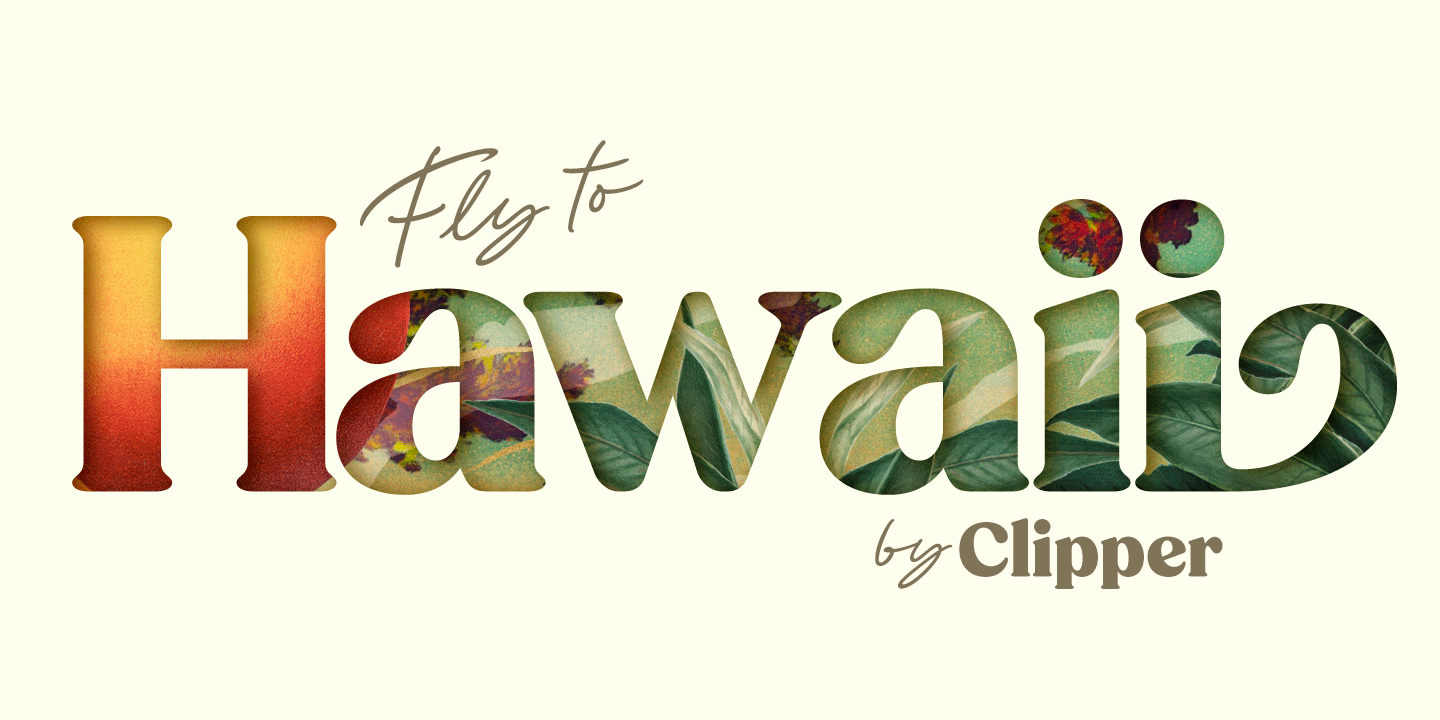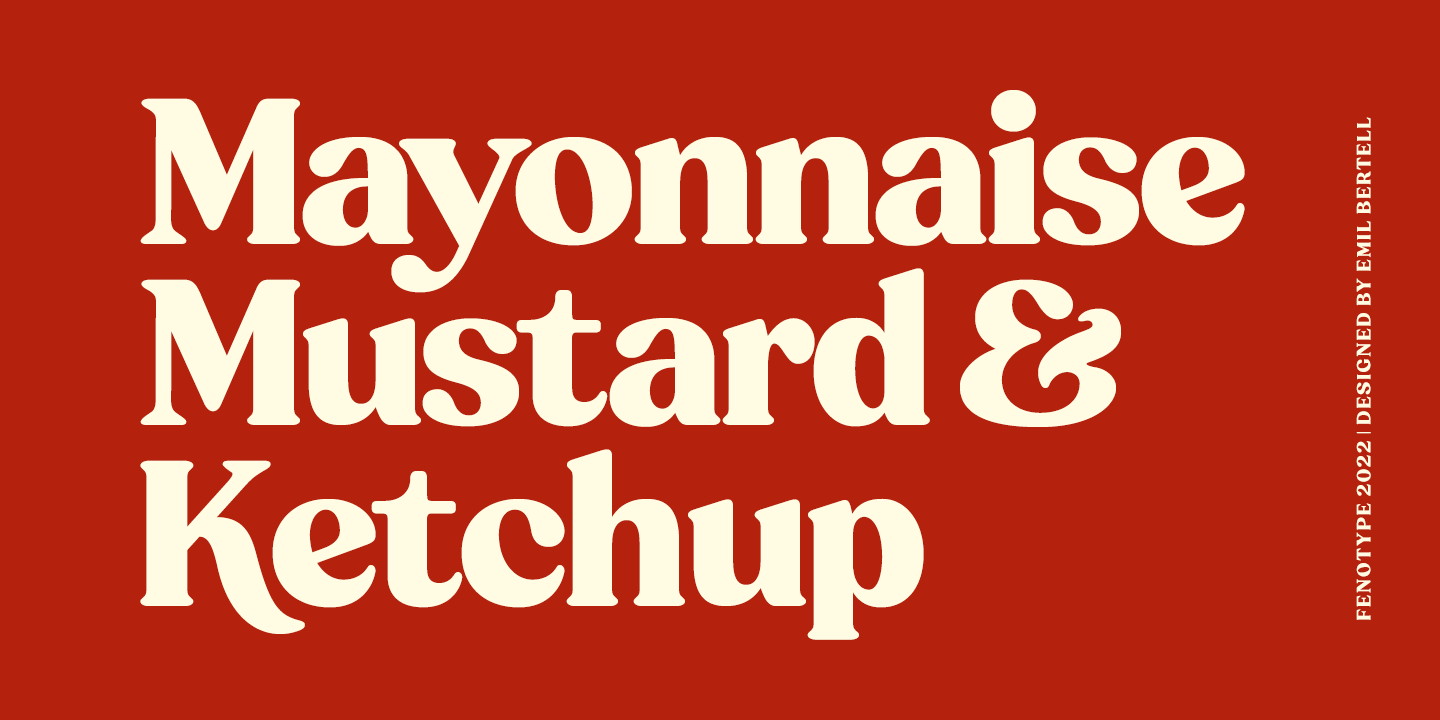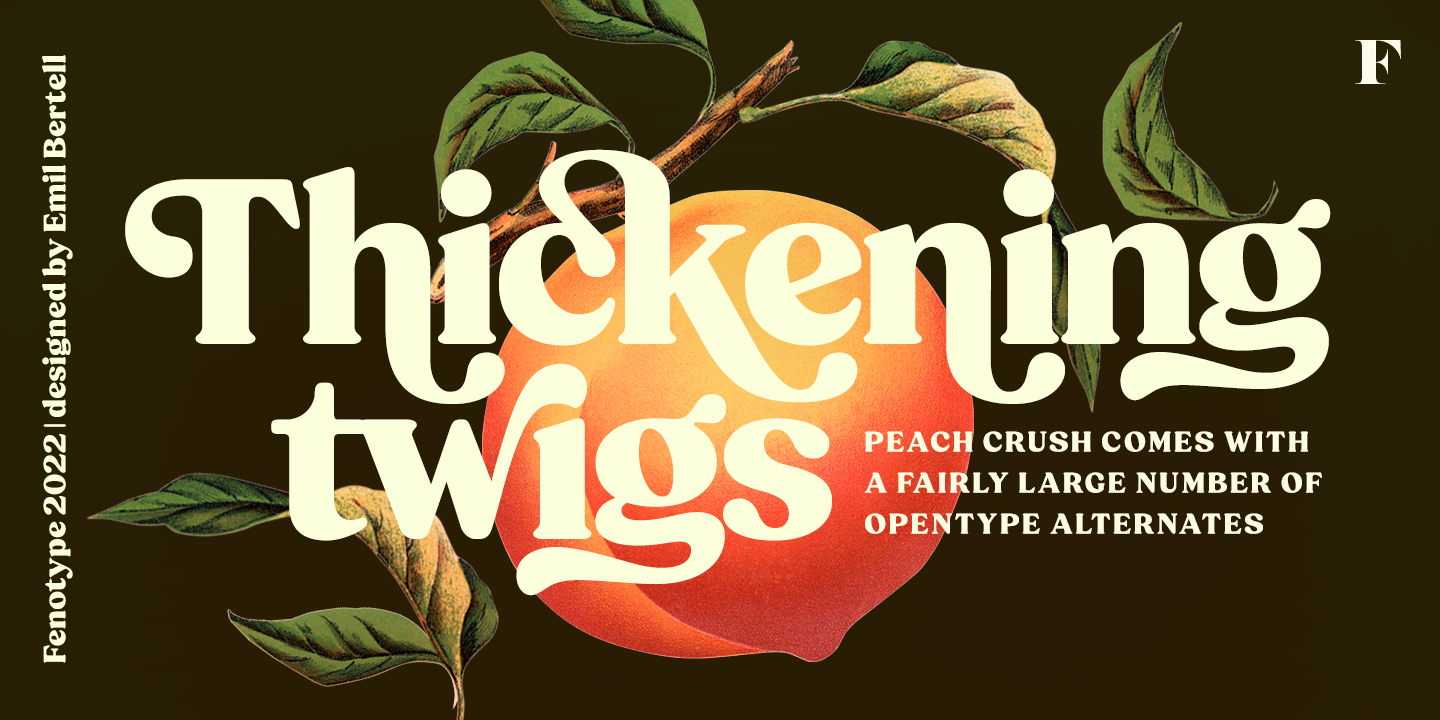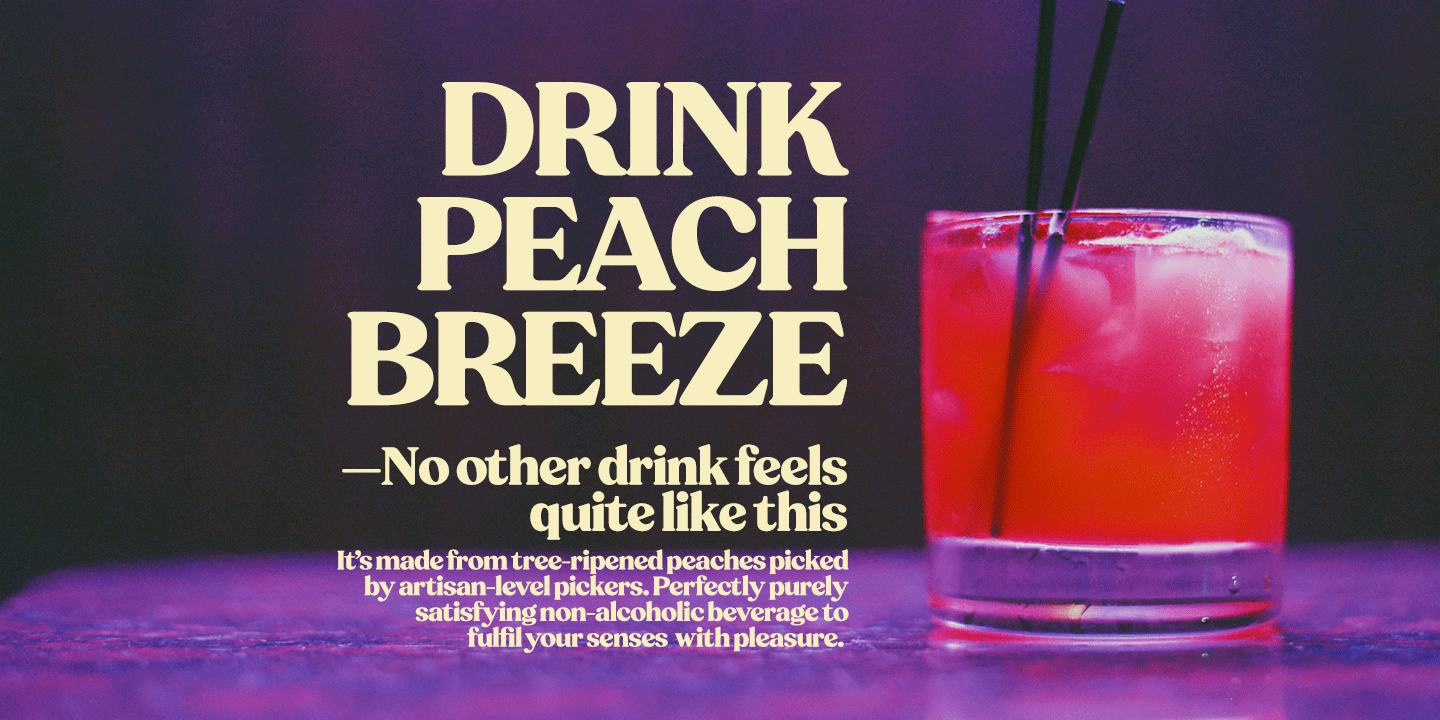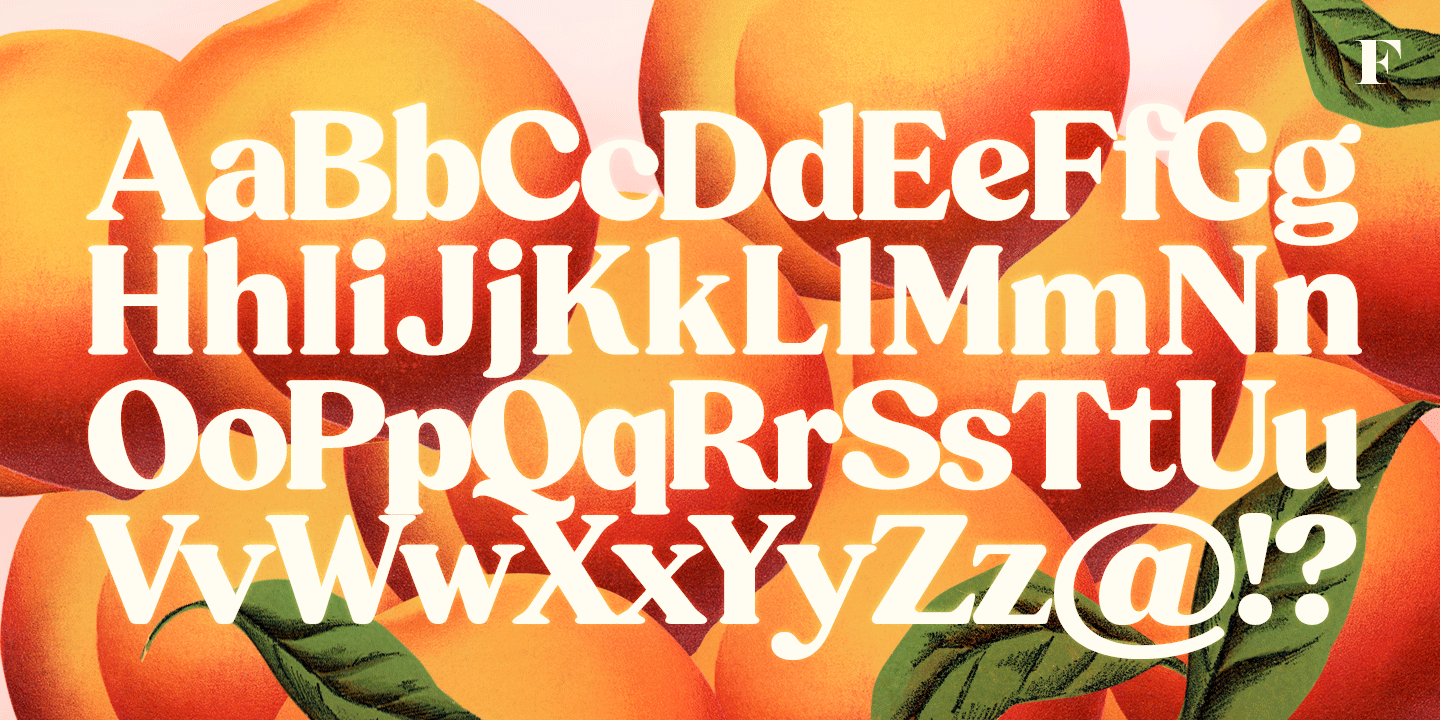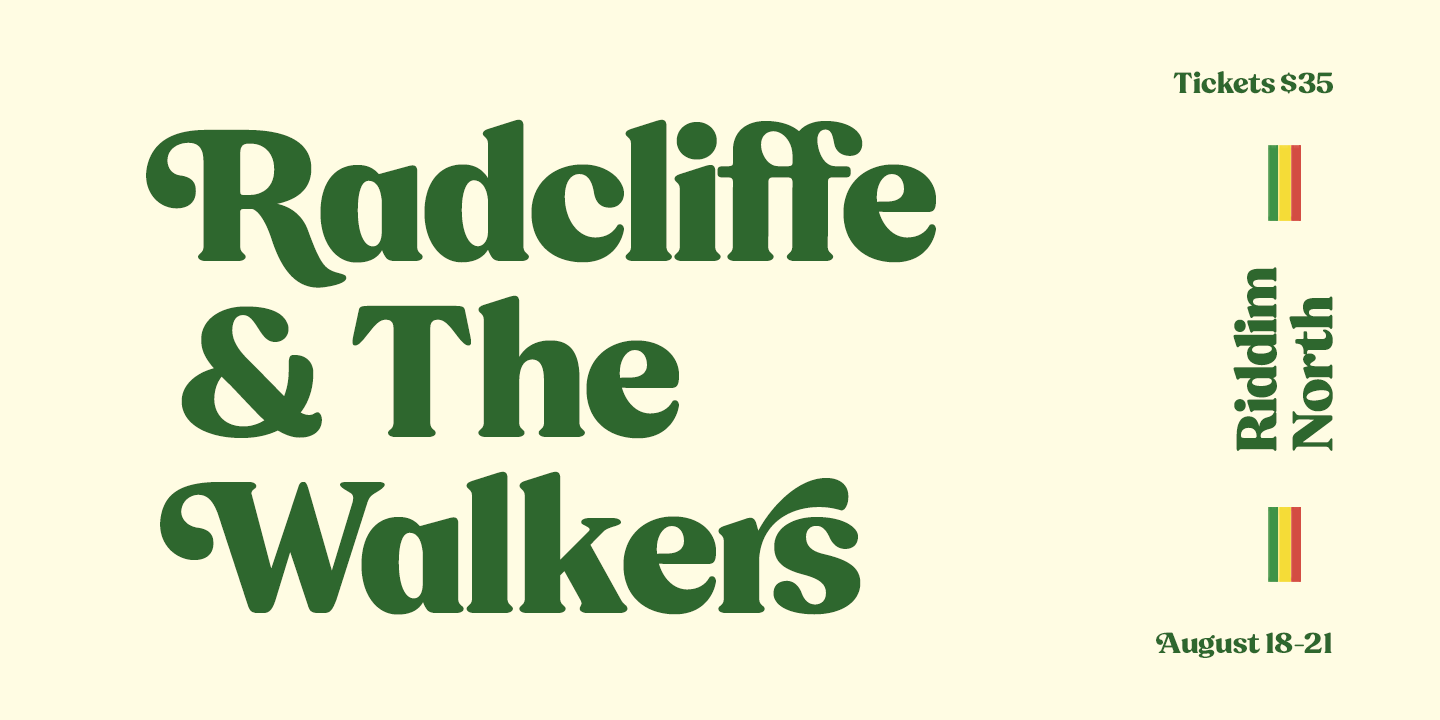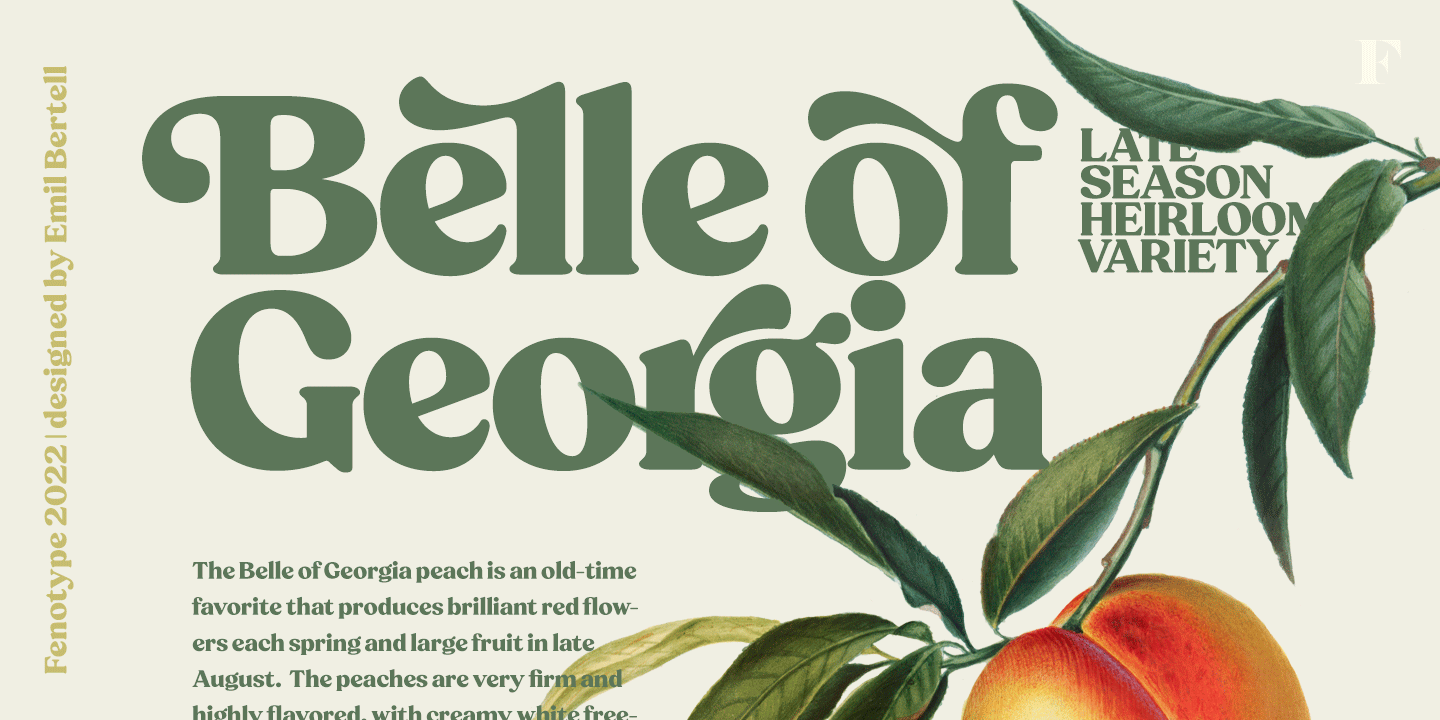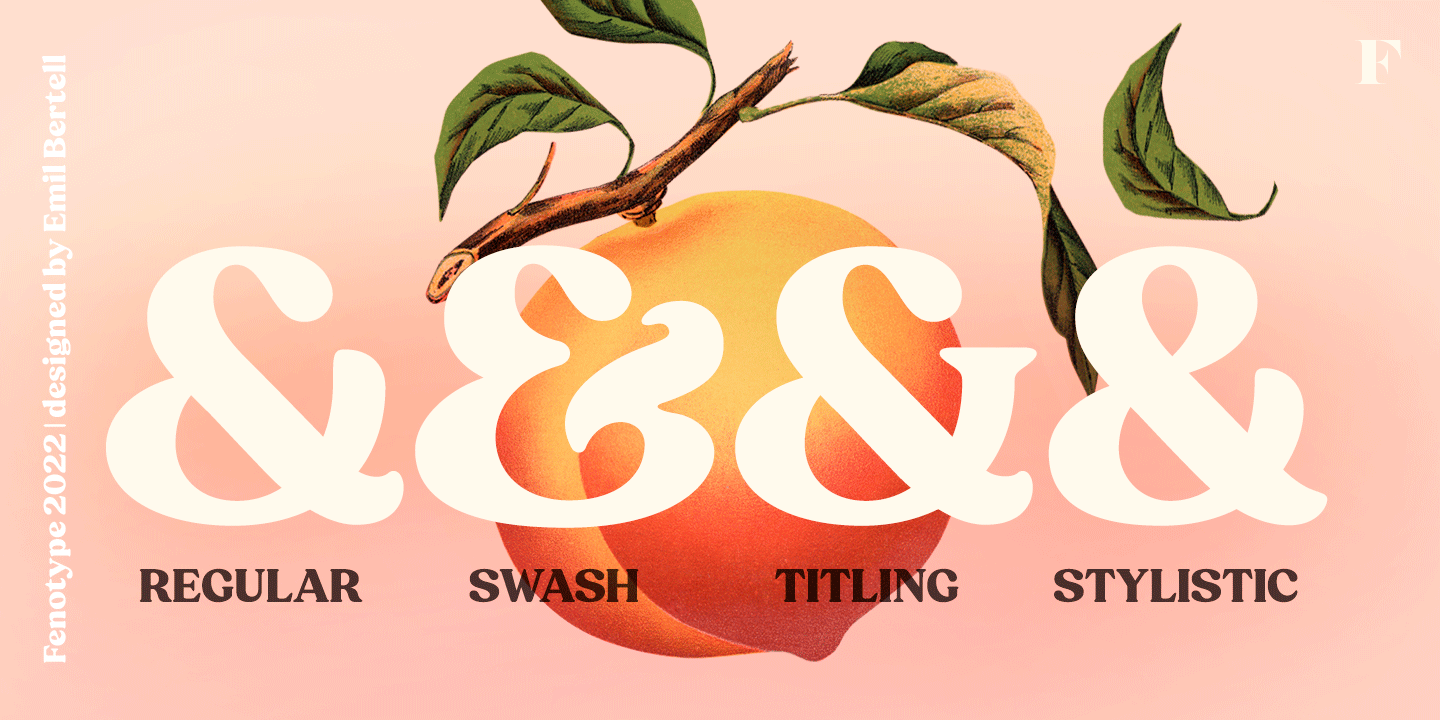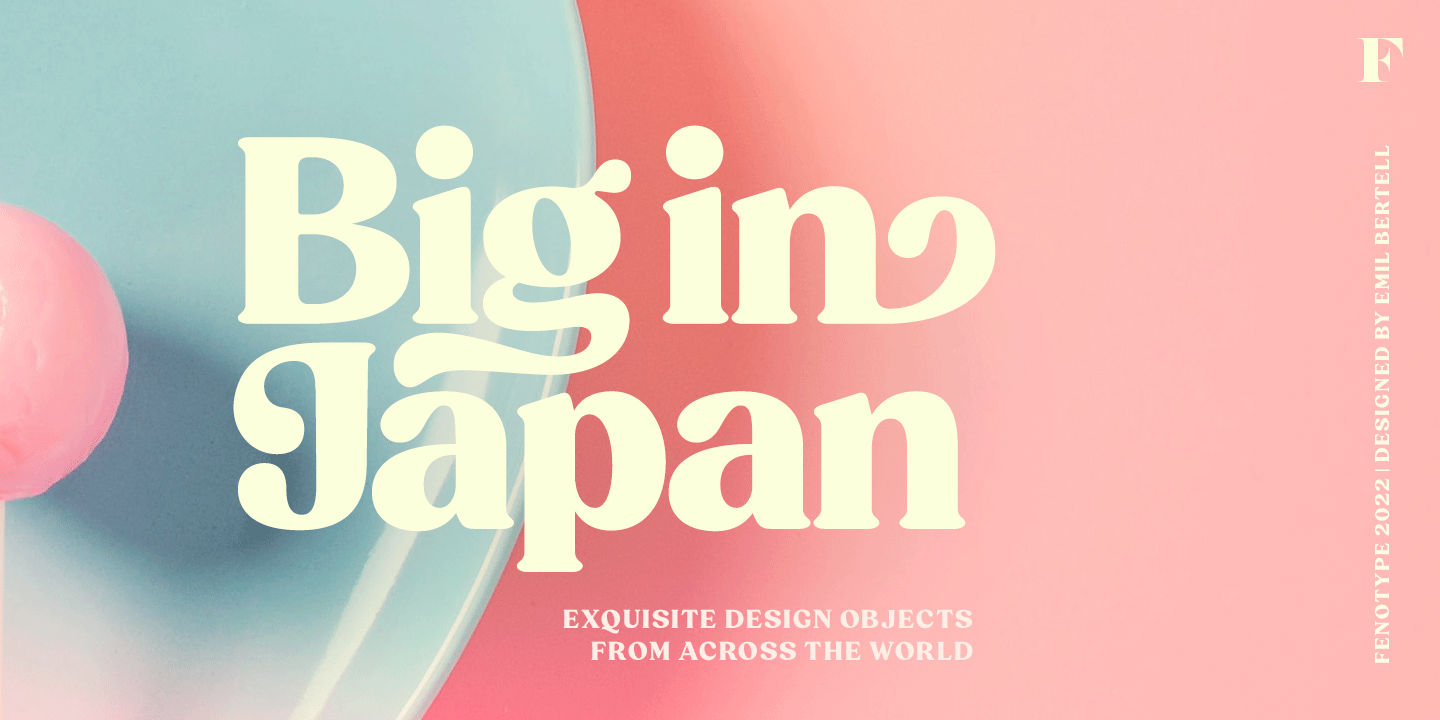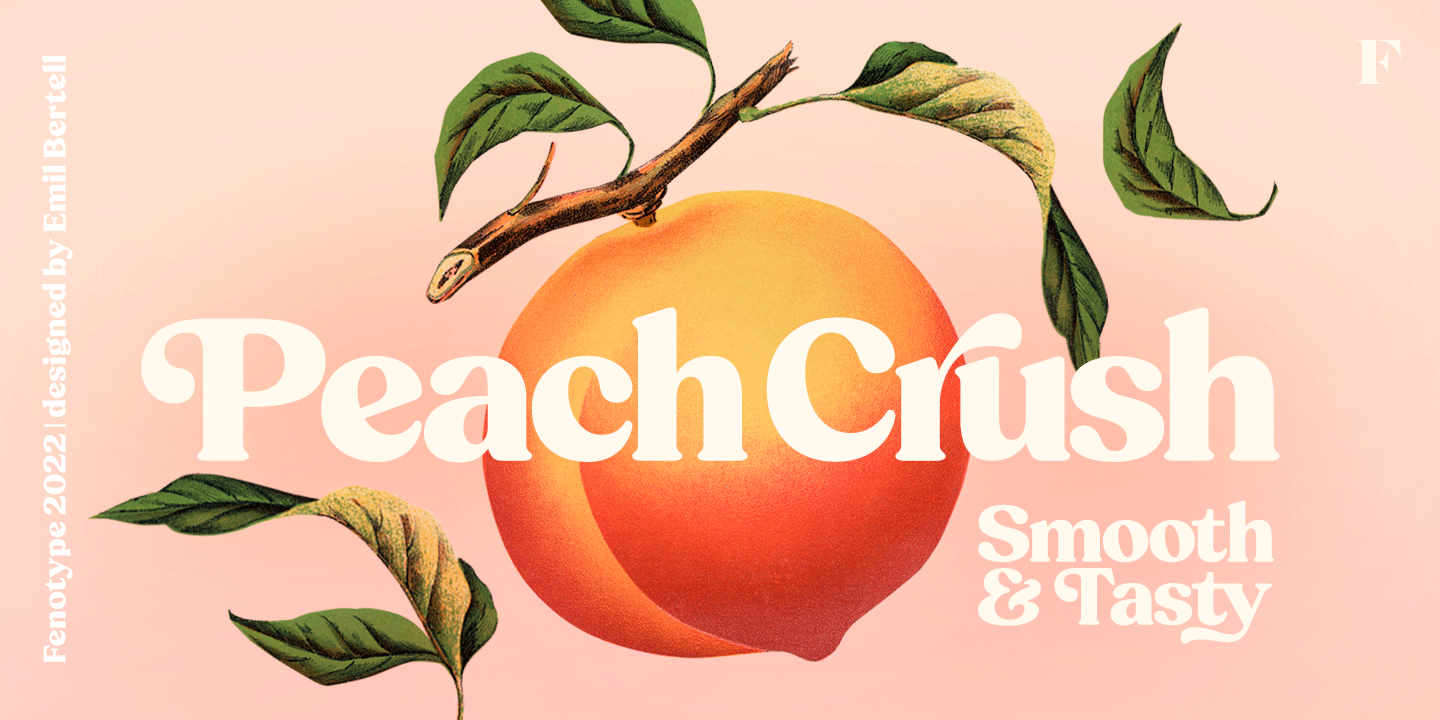
Peach Crush
About Peach Crush
Peach Crush is a bold vintage style serif font with a soft charm and smooth features. Peach Crush delivers a reminiscence of a familiar and warm nostalgic feeling. Peach Crush is equipped with Contextual, Swash, Stylistic and Titling alternates as well…